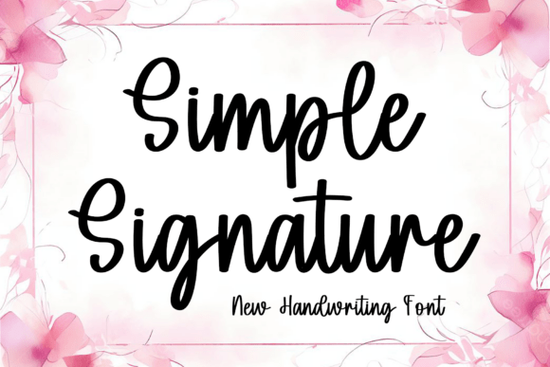
If you’ve been looking for a contemporary handwritten script that still feels refined and easy to read, Simple Signature Font is worth a close look. It blends tall, airy ascenders with soft, sweeping loops in a way that adds instant sophistication without becoming too formal or stuffy. I’ve used it for client logo concepts that needed a personal, upscale touch, and it consistently makes even simple text look intentional and polished.
What makes this signature style different from other script fonts?
Many script fonts lean either too casual or too ornate. Simple Signature Font sits right in the middle. The letterforms have a fluid, natural rhythm that mimics a confident pen stroke, but the overall proportions stay clean and legible at various sizes. You’ll notice tall stems on letters like “l,” “h,” and “k,” while the descenders on “g” and “y” curl gently. That contrast creates a dance-like movement across a line of text. Because the connections between letters are smooth but not overly tight, words hold their shape well even when you adjust tracking or use the font in all caps for short headings.
Designers who usually lean on classic calligraphy fonts will appreciate how this one trims away the extra flourishes. It still offers luxury branding potential but feels fresher and less like a wedding invitation from two decades ago. At the same time, it’s warm enough for boutique product labels, author signatures on book covers, or social media quote graphics.
Which projects really let this font shine?
I see Simple Signature Font used most often in projects that need a human, handcrafted quality while still dressing up the final look. For wedding stationery, it works beautifully on invitation names, place cards, and thank-you notes it brings that personal, handwritten feel without sacrificing legibility. Small businesses creating signature logos or monograms lean on it for a quick visual upgrade that signals care and attention to detail.
If you run a print-on-demand shop, this script fits nicely on mugs, tote bags, and throw pillow covers where a heartfelt message or a single word of inspiration needs to stand out. Editorial designers often drop it into magazine pull quotes or opening paragraphs for a refined artisanal feel. Because the font includes a full set of ligatures and alternates (depending on the file you download), you can tailor the flow so that every pairing looks natural rather than forced.
How do you pair a fluid signature script with other typefaces?
A font like this rarely plays well with other detailed scripts, so I tend to keep pairings simple. Clean sans-serifs such as Montserrat, Lato, or Open Sans let the loops and swells do the talking without visual clutter. For something with a bit more contrast, a sophisticated serif like Playfair Display or Cormorant can complement the tall ascenders, especially in editorial layouts.
When you need a bolder secondary font for hierarchy say for shop names or product titles a understated italic serif often pairs better than a heavy sans. The key is to let Simple Signature Font handle the focal message and keep the supporting text quiet. This becomes especially important on product packaging, where the wordmark should be readable from a distance while the details stay clean.